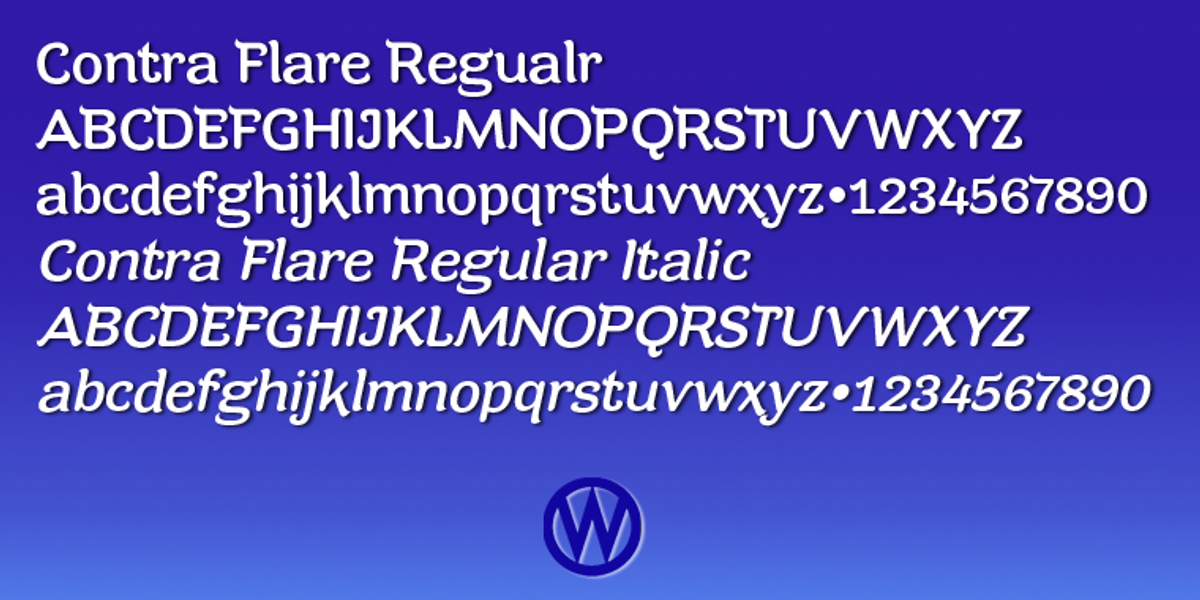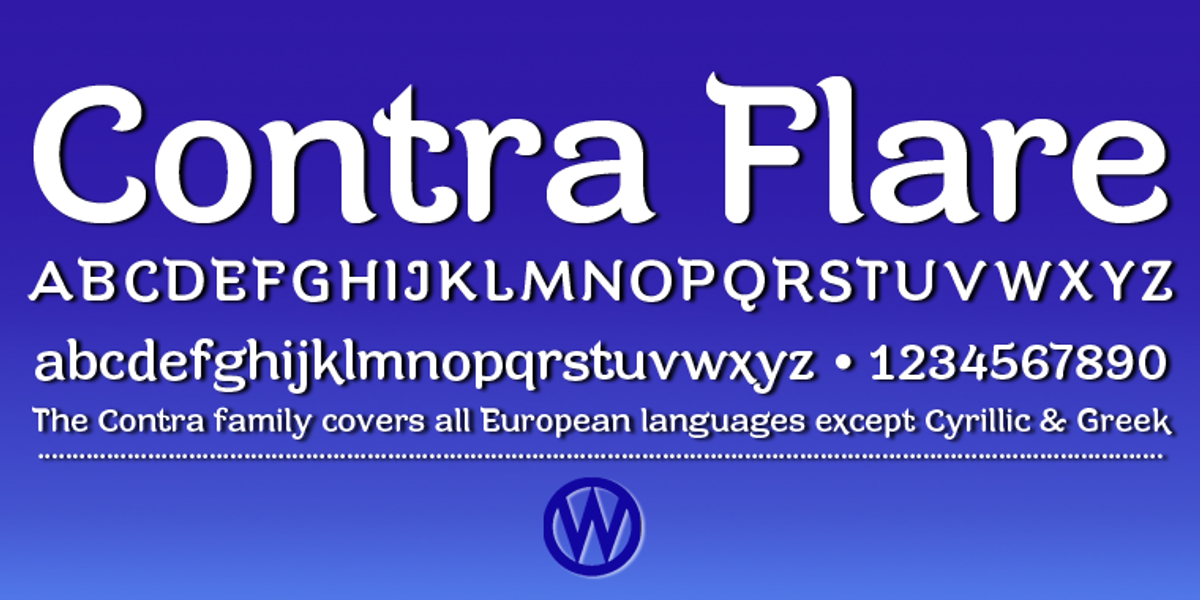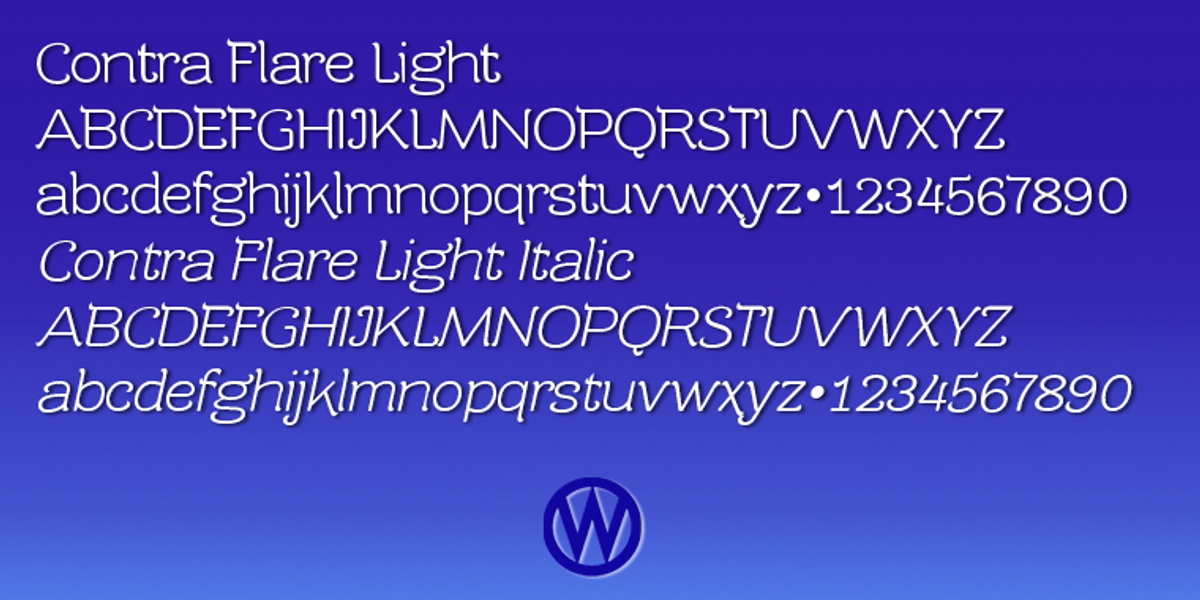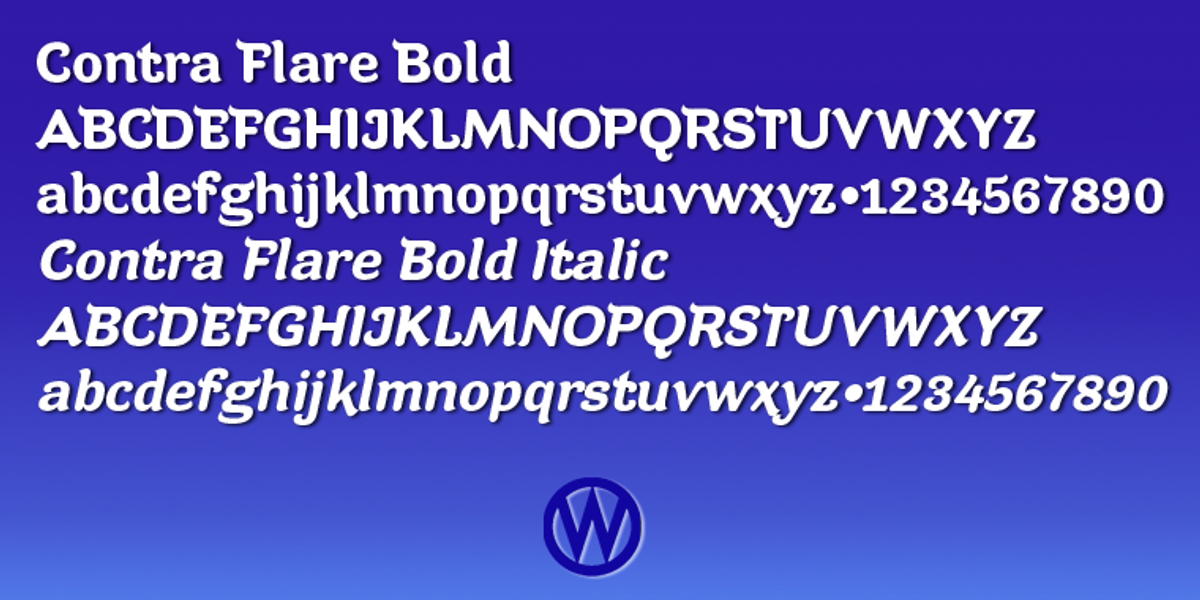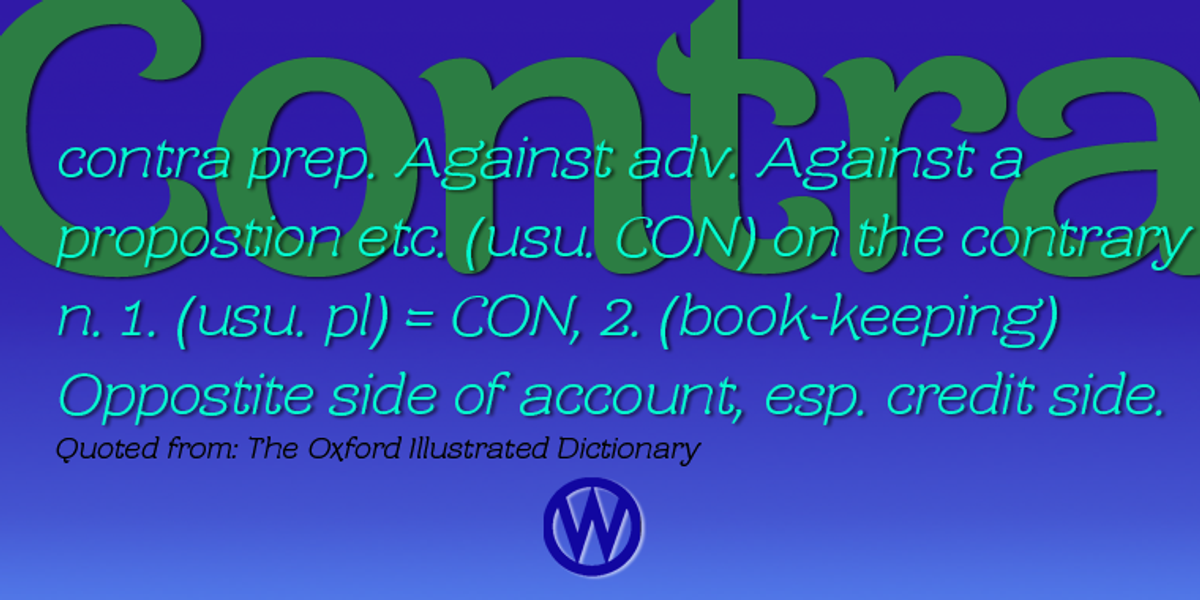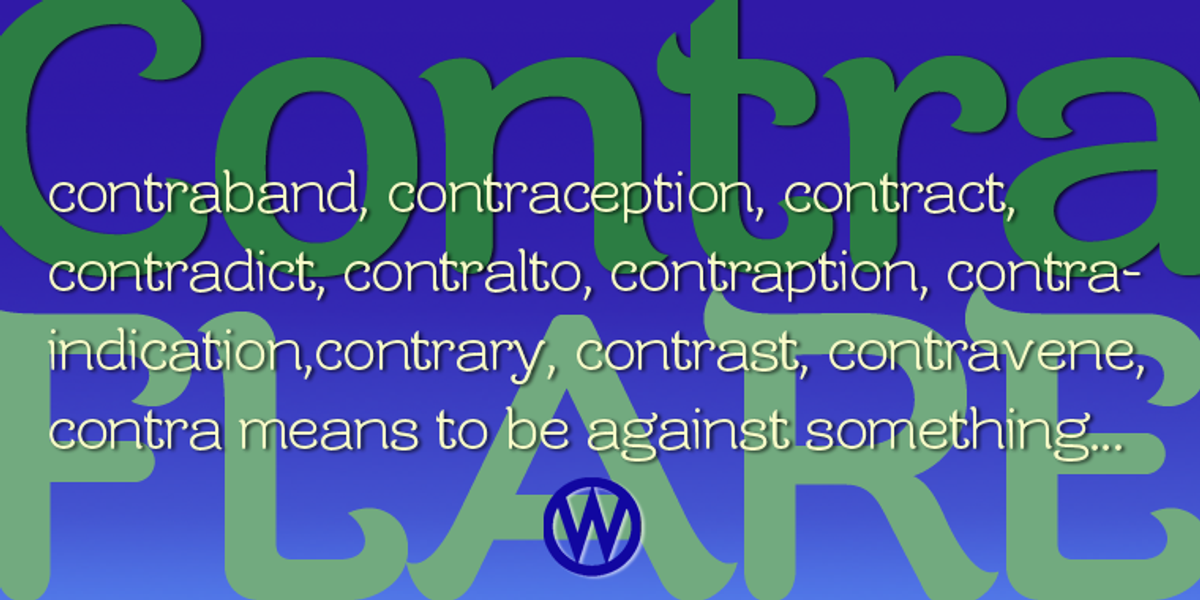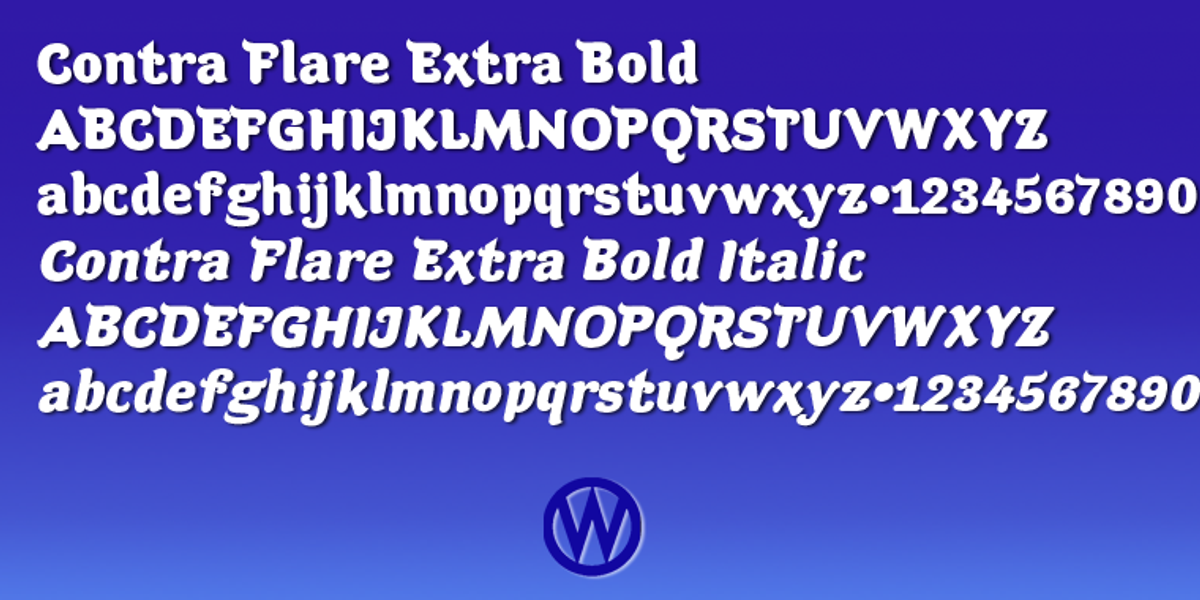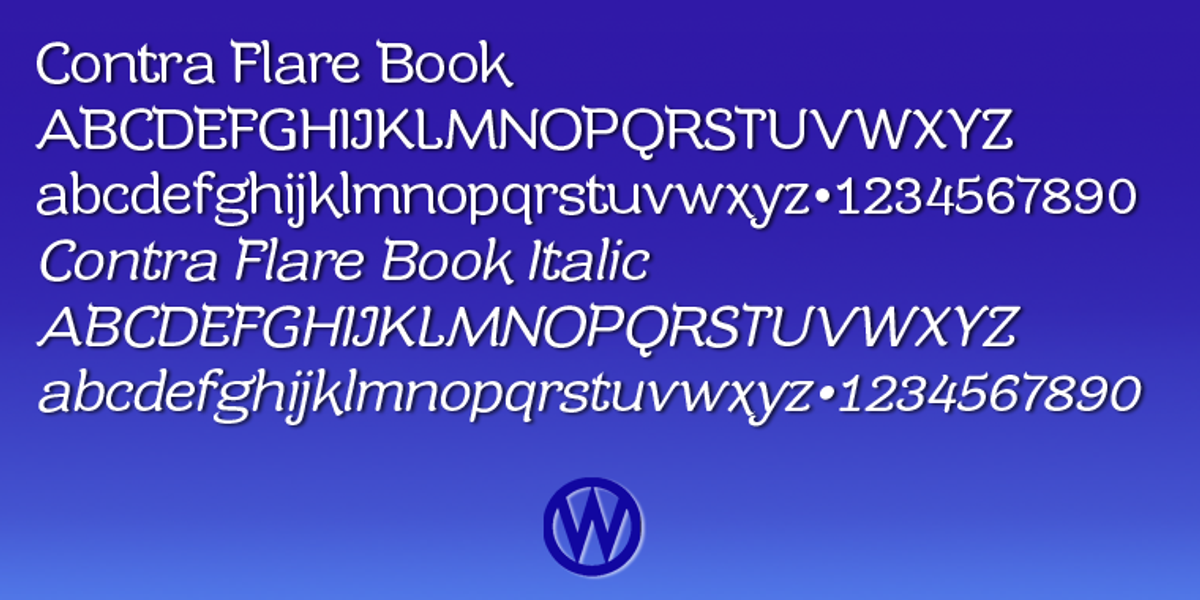
Contra Flare
Contra Flare is a display serif font characterized by its elegant appearance and unique curved endings. These curves resemble the delicate shapes of flower petals or leaves, giving the typeface an organic and slightly whimsical feel. Suitable for posters and titling where a feminine and eye-catching aesthetic is desired.